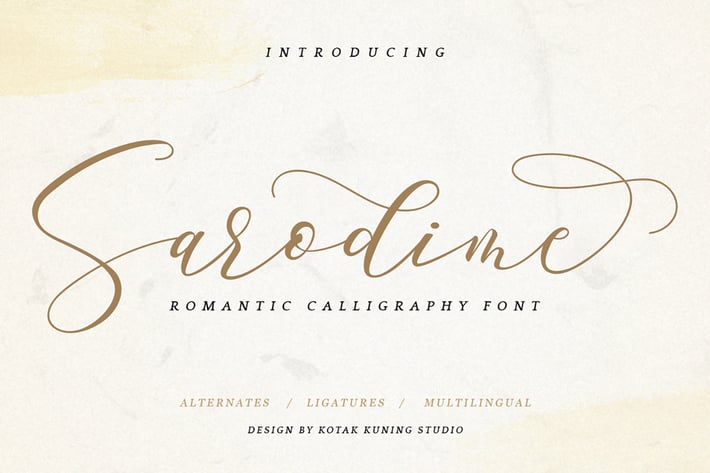
Sarodime - Elegant Signature Font
Sarodime Script is a romantic calligraphy font with a natural & stylish flow. This collection of scripts is perfect for personal branding.
Sarodime Font is perfect for many different projects such as logos & branding, invitation, stationery, wedding designs, social media posts, advertisements, product packaging, product designs, label, photography, watermark, special events, or anything.